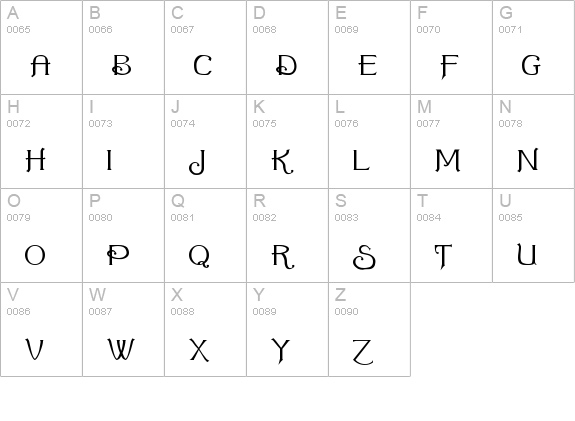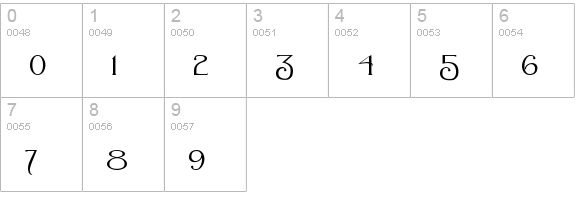
Summertime Font Details
Summertime font exudes a sense of warmth and sunshine, perfect for adding a touch of summer vibes to your designs. Its playful curves and elegant strokes capture the essence of lazy days spent under the sun. This font is versatile and can be used for various design projects, from invitations to posters to social media graphics. The best part is, Summertime font is completely free to download at FontsMarket.com. Whether you're working on a personal project or a professional design, this font will bring a cheerful and carefree feel to your work. Embrace the spirit of summer with Summertime font and let your creativity shine!